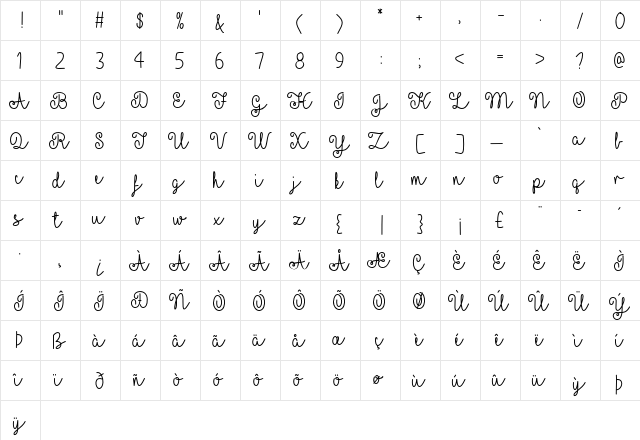
Yellow Butterflies Regular
Design Context for Yellow Butterflies Typeface
Yellow Butterflies takes a measured approach to typography — its balanced proportions and neutral character make it a reliable workhorse for both digital and print work.